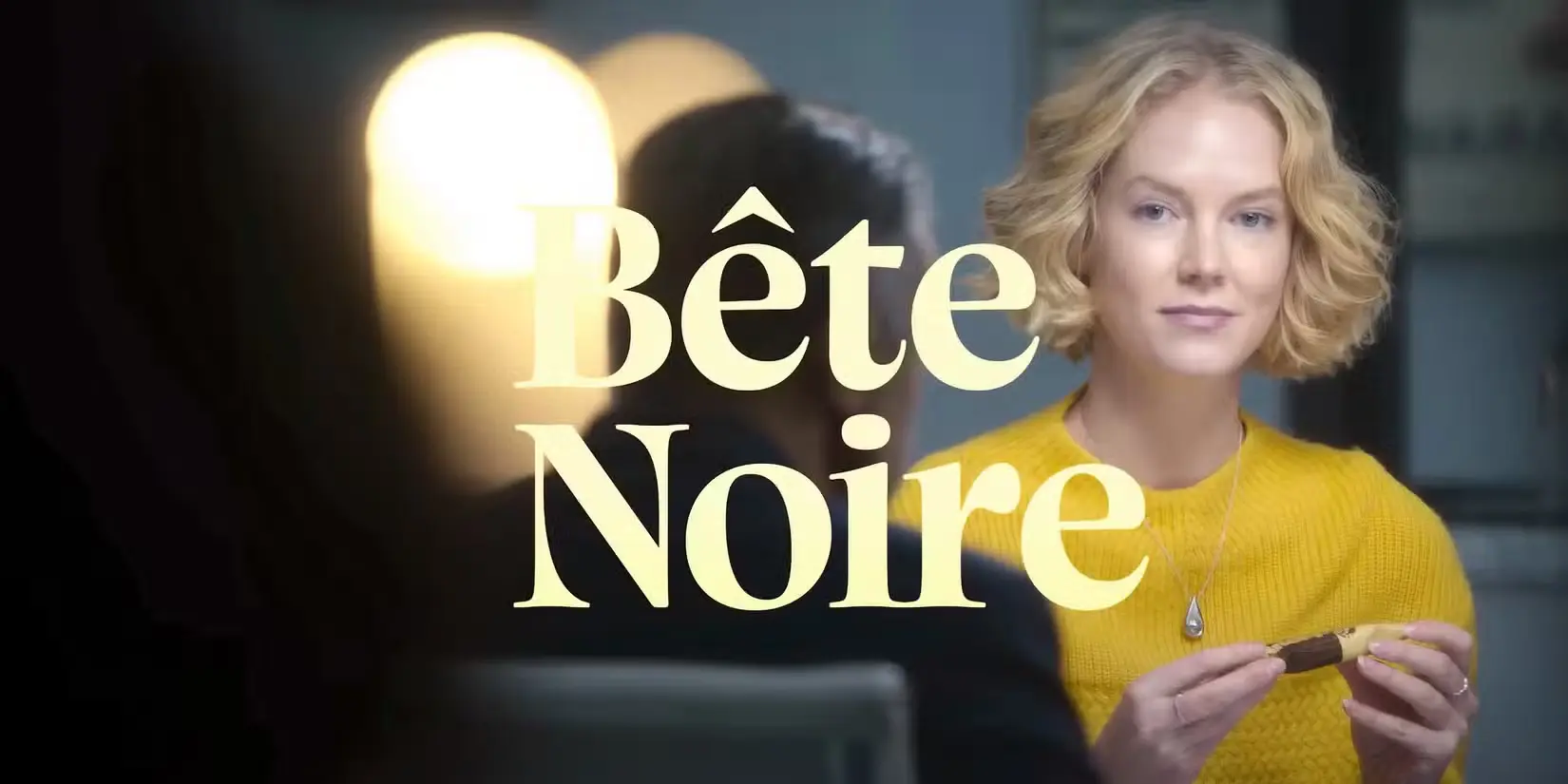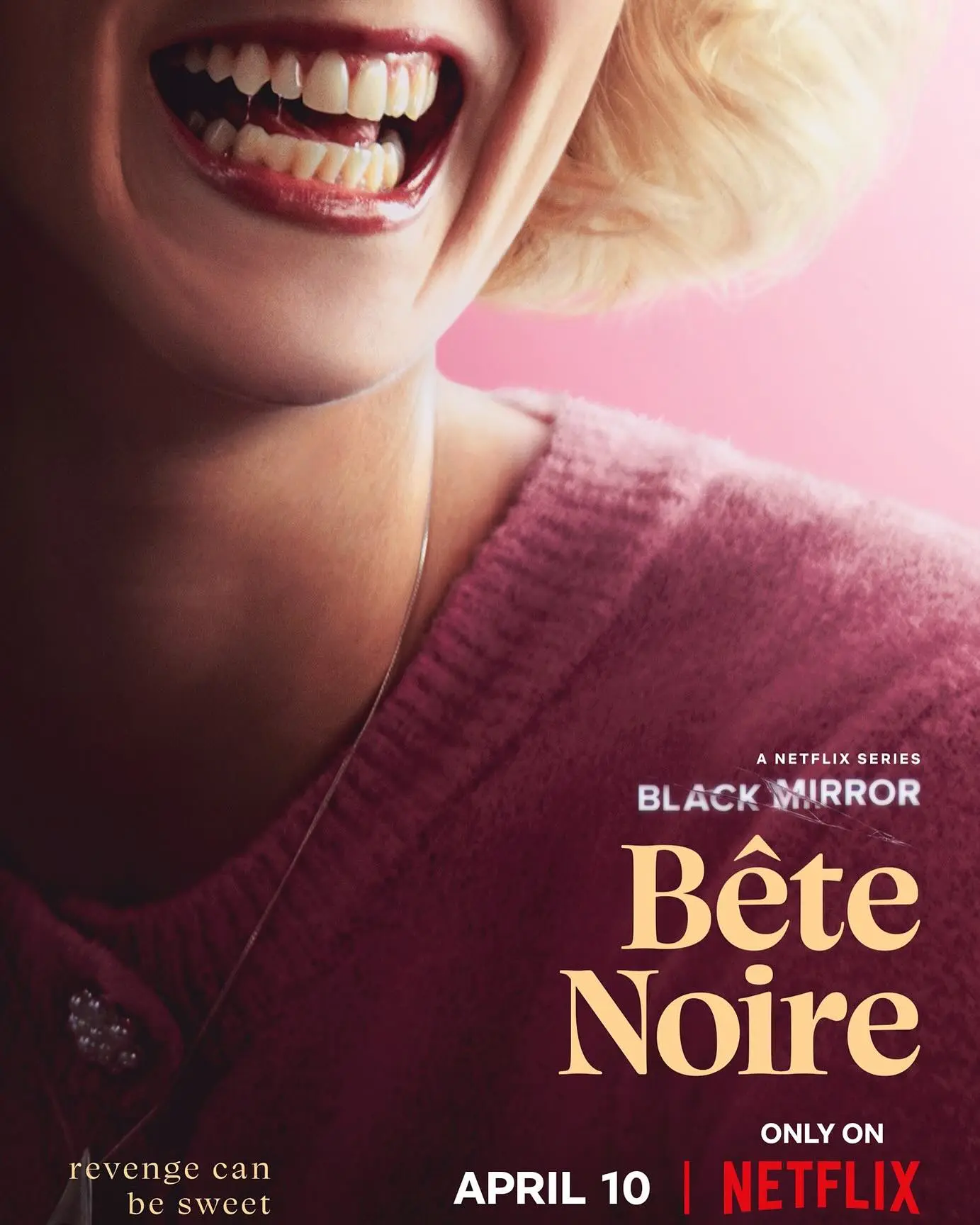
Black Mirror Season 7 “Bête Noire”
The chilling title sequence and in-world corporate branding for Black Mirror's "Bête Noire" leverage the elegant Charlea font to set a perfectly unsettling cinematic tone.
“Bête Noire,” the gripping second episode of Black Mirror’s seventh season, explores the dark side of reality manipulation and corporate greed. Produced by Netflix, the episode features meticulous in-world graphic design and title sequencing crafted by graphic designer Sam Morley and production designer Miranda Jones. Their work brilliantly brings the fictional Ditta confectionery company to life, contrasting a polished, high-end corporate aesthetic with the intense psychological horror unfolding beneath the surface.
To achieve this delicate balance, the Charlea font by Kereatype was selected for the episode’s title and key typographic elements. Its sleek, modern serifs and subtly sharp curves provide an elegant yet menacing atmosphere that perfectly complements the episode’s themes of distorted reality. The high-contrast letterforms demand attention while maintaining a sophisticated cinematic feel, making it an ideal choice for a psychological thriller.
Dramatic Netflix series poster featuring a close-up of a crying woman in a denim jacket and turtleneck featuring Charlea typeface in use
Intense promotional poster mockup showing a smiling woman with the tagline revenge can be sweet featuring Charlea typeface in use
Cinematic movie frame mockup featuring a blonde woman in a yellow sweater with bold title overlay featuring Charlea typeface in use